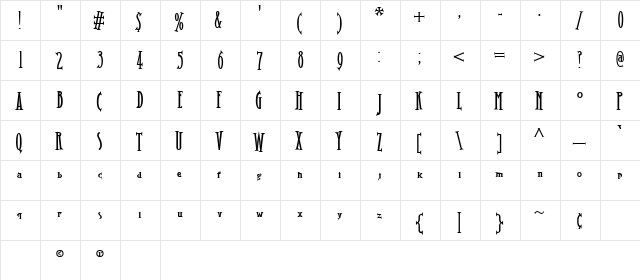
Jack Bisio Regular
Design Context for Jack Bisio Typeface
Jack Bisio is a composed and adaptable typeface that performs quietly and consistently across a wide range of design contexts.